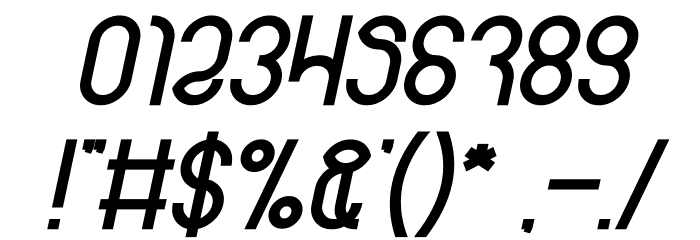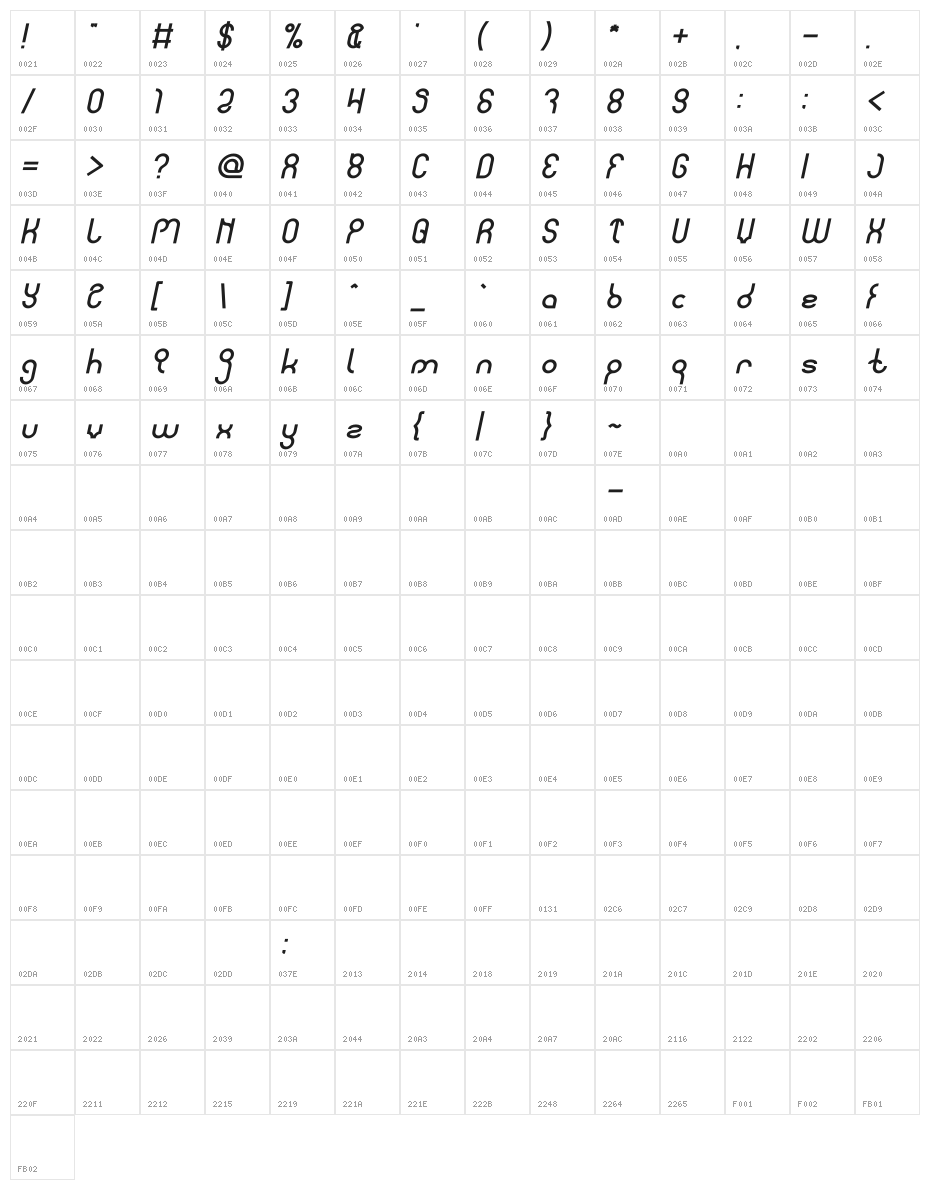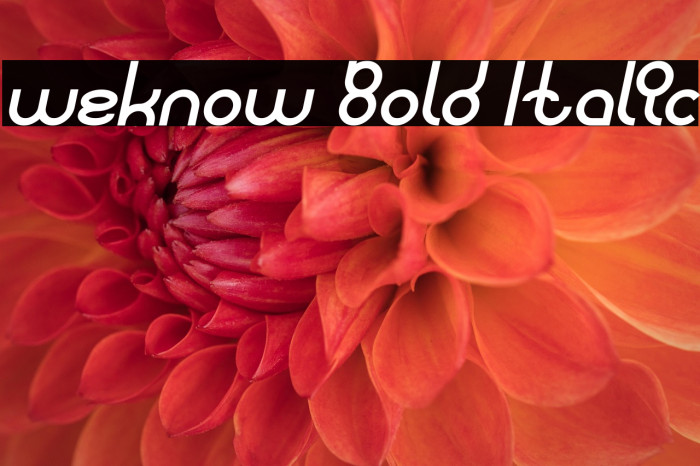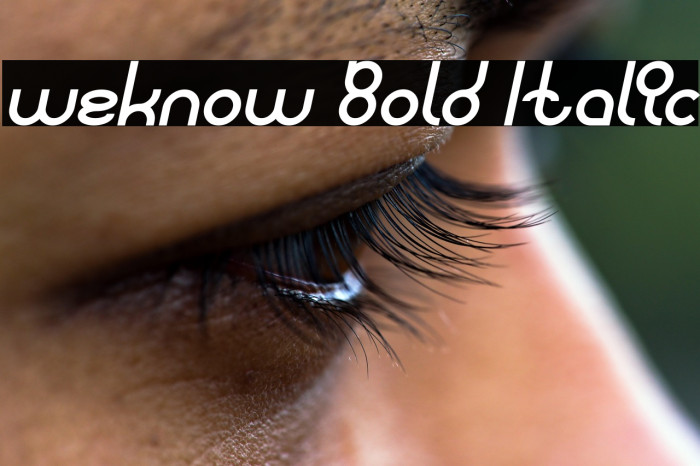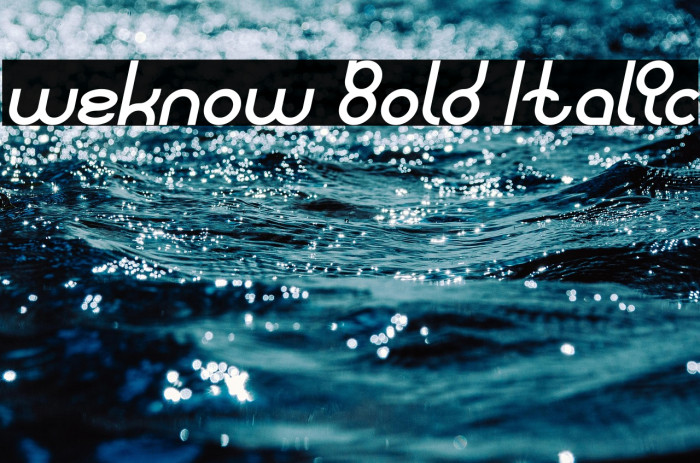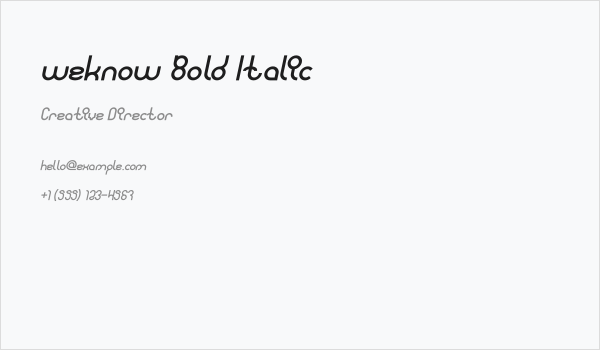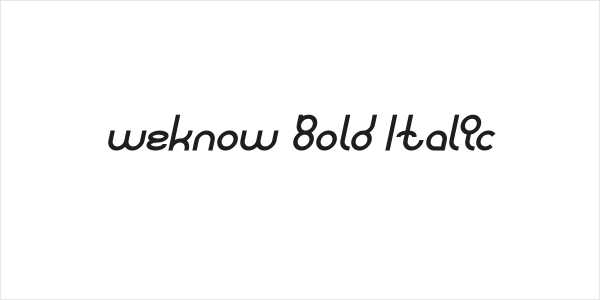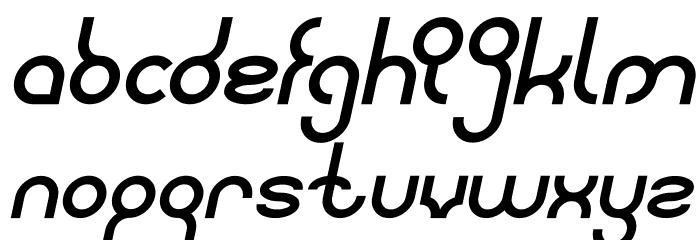
weknow Bold Italic Font
weknow Bold Italic Description
This font features a bold and italicized style with a unique, flowing design that combines elements of both modern and decorative typography. The characters are rounded with a slight slant, giving them a dynamic and energetic appearance. The uppercase letters maintain a consistent height, while the lowercase letters have a playful, almost whimsical quality. Numbers and special characters are designed to match the overall aesthetic, ensuring a cohesive look across all text. The font's boldness makes it stand out, while the italicization adds a sense of movement and fluidity.